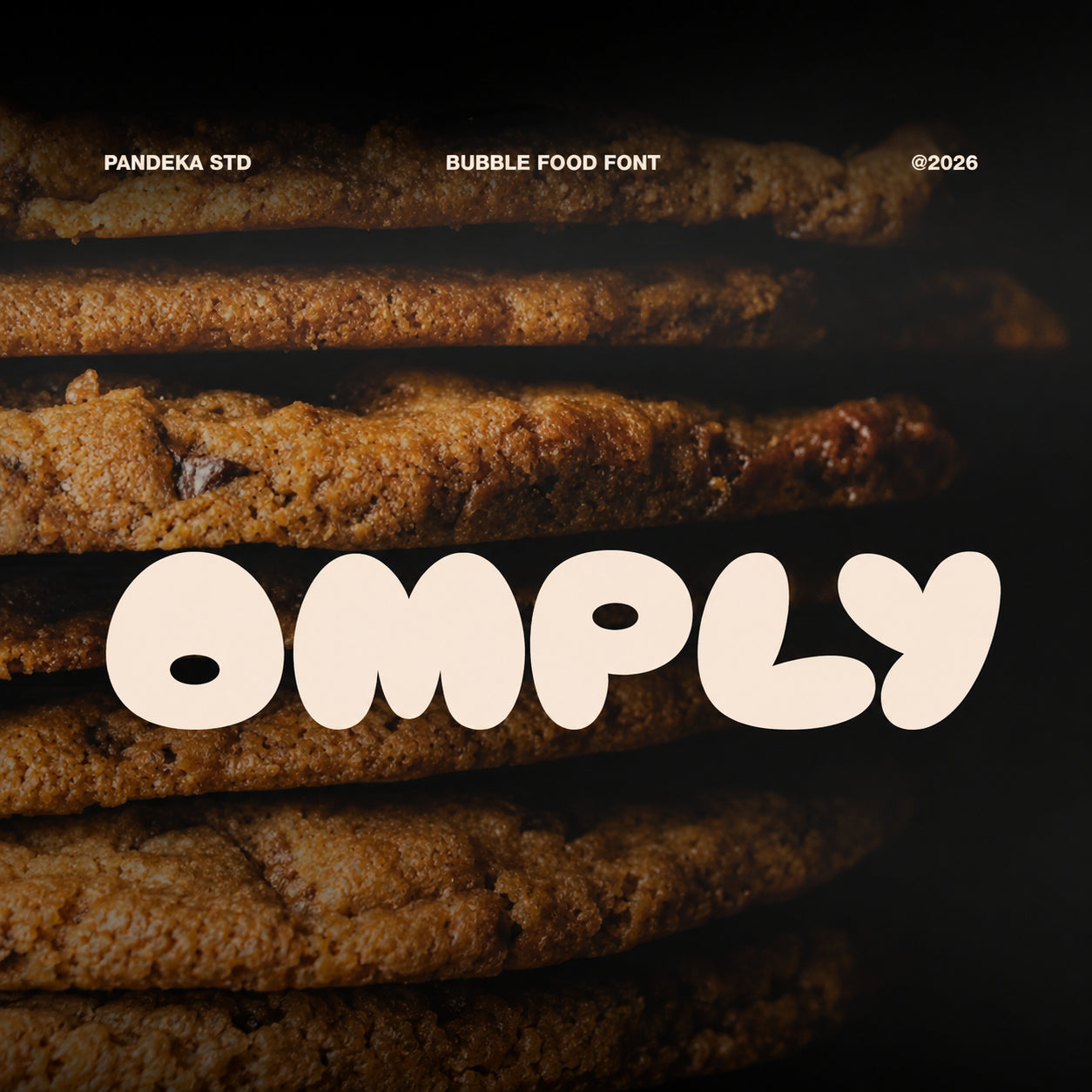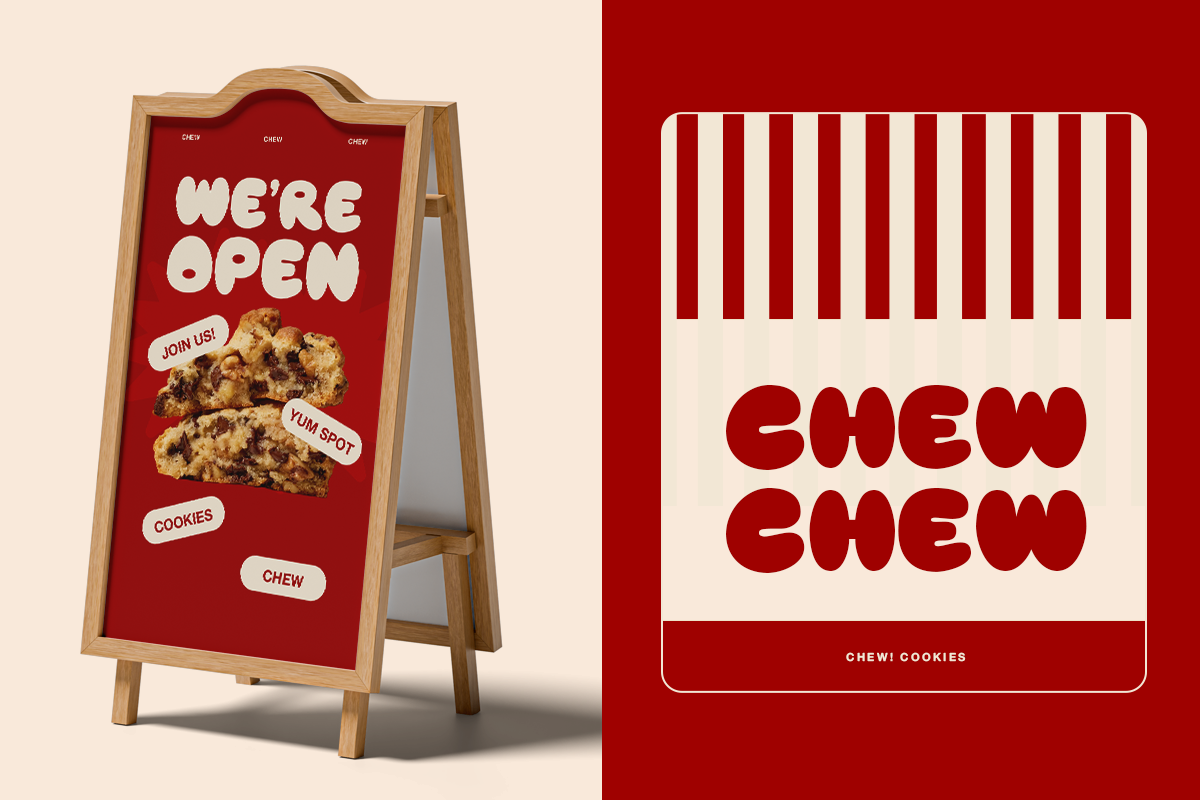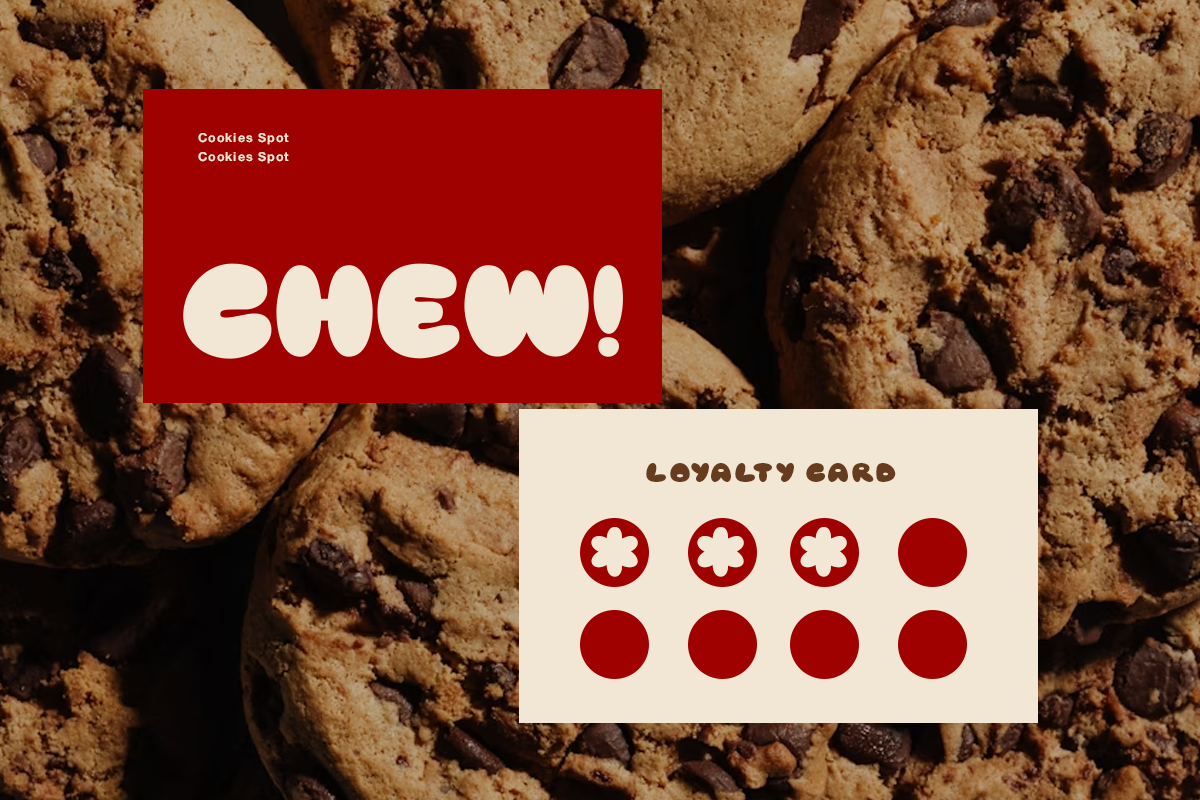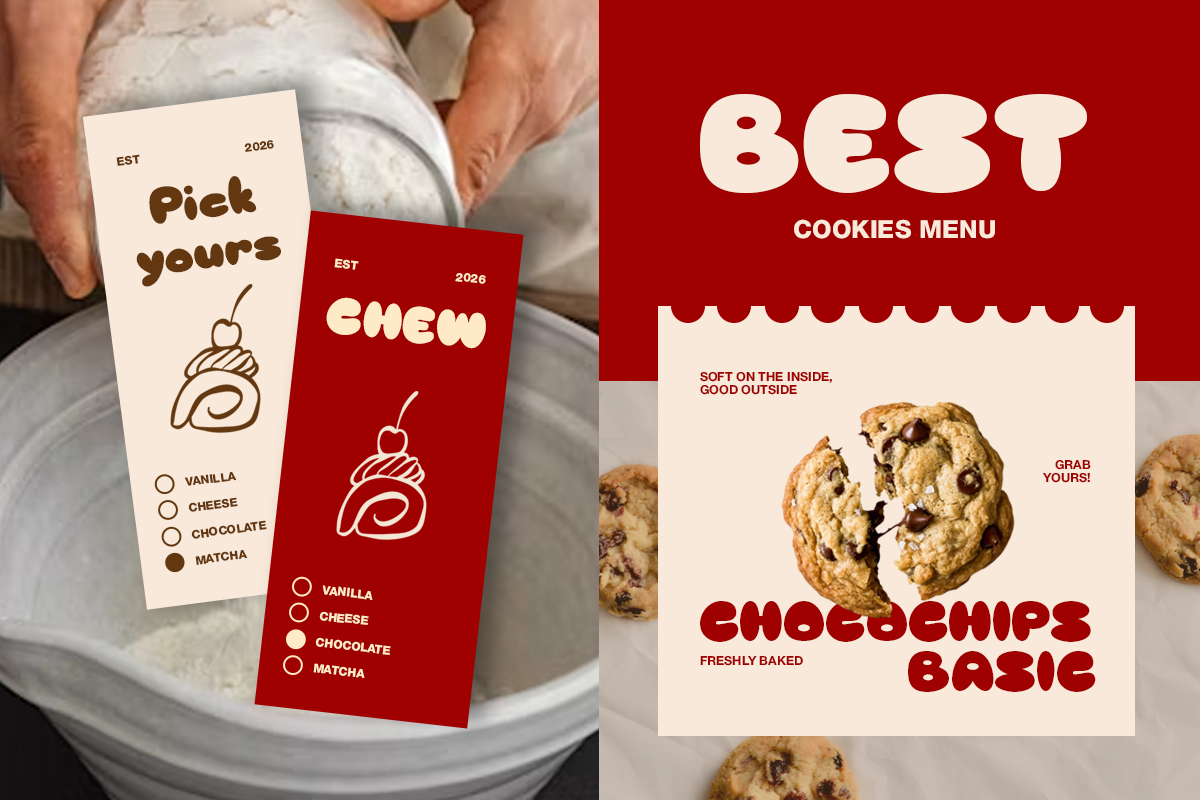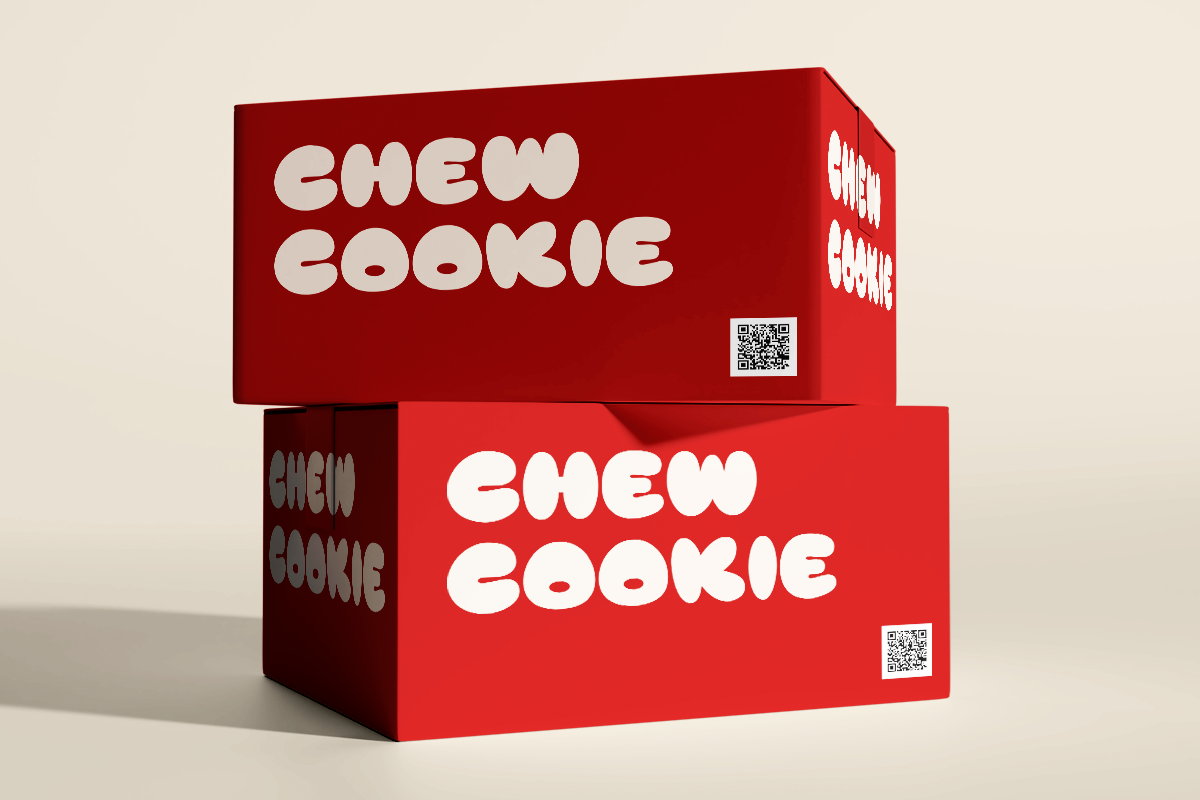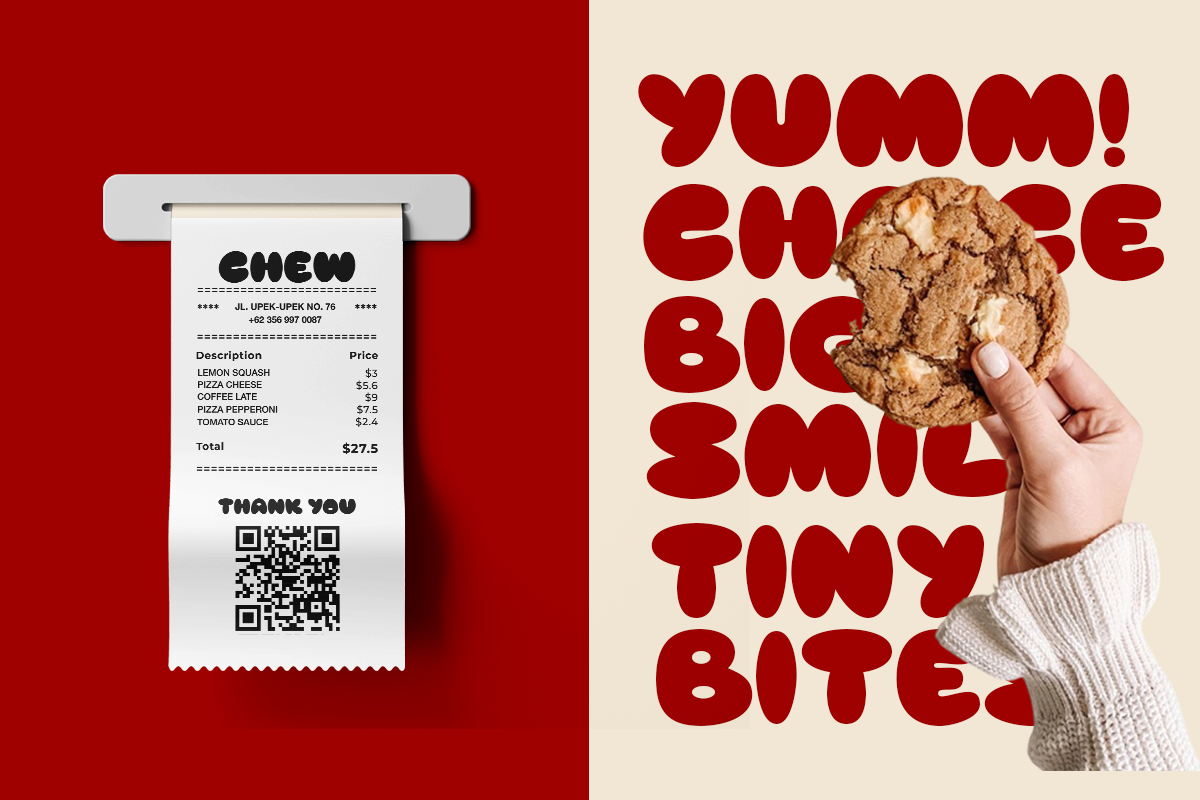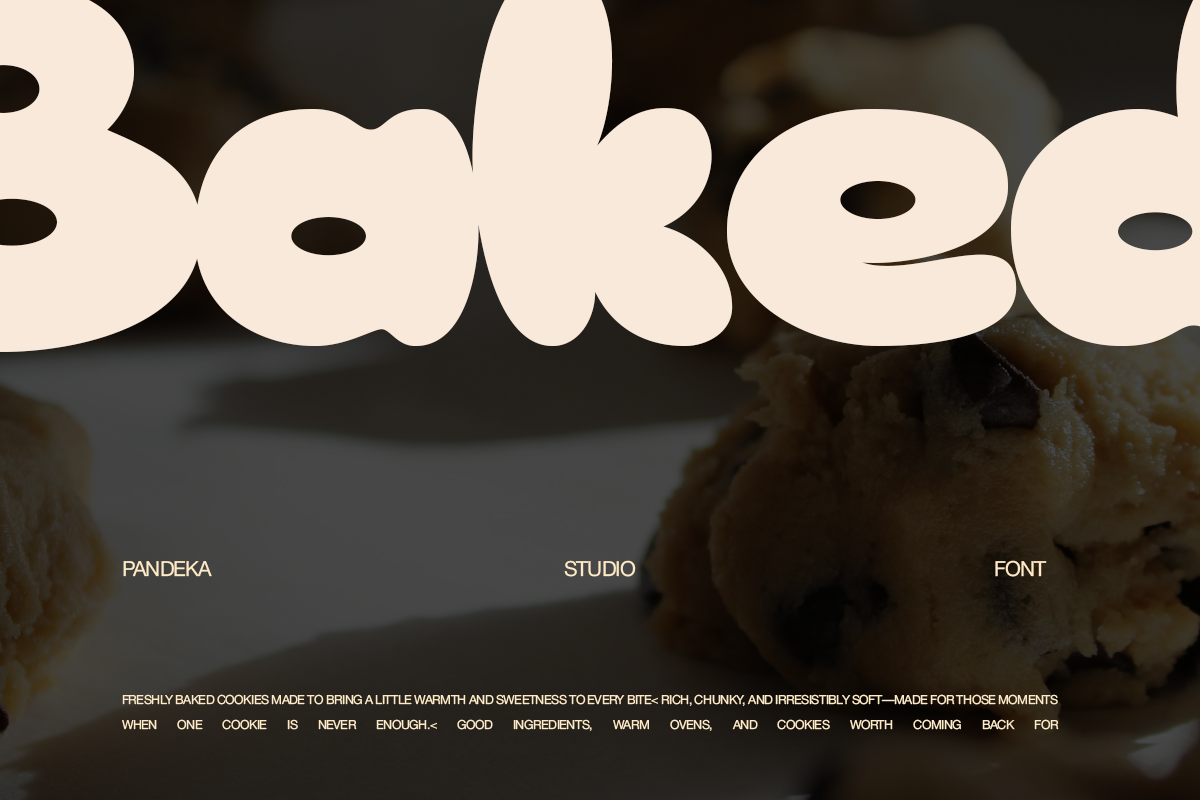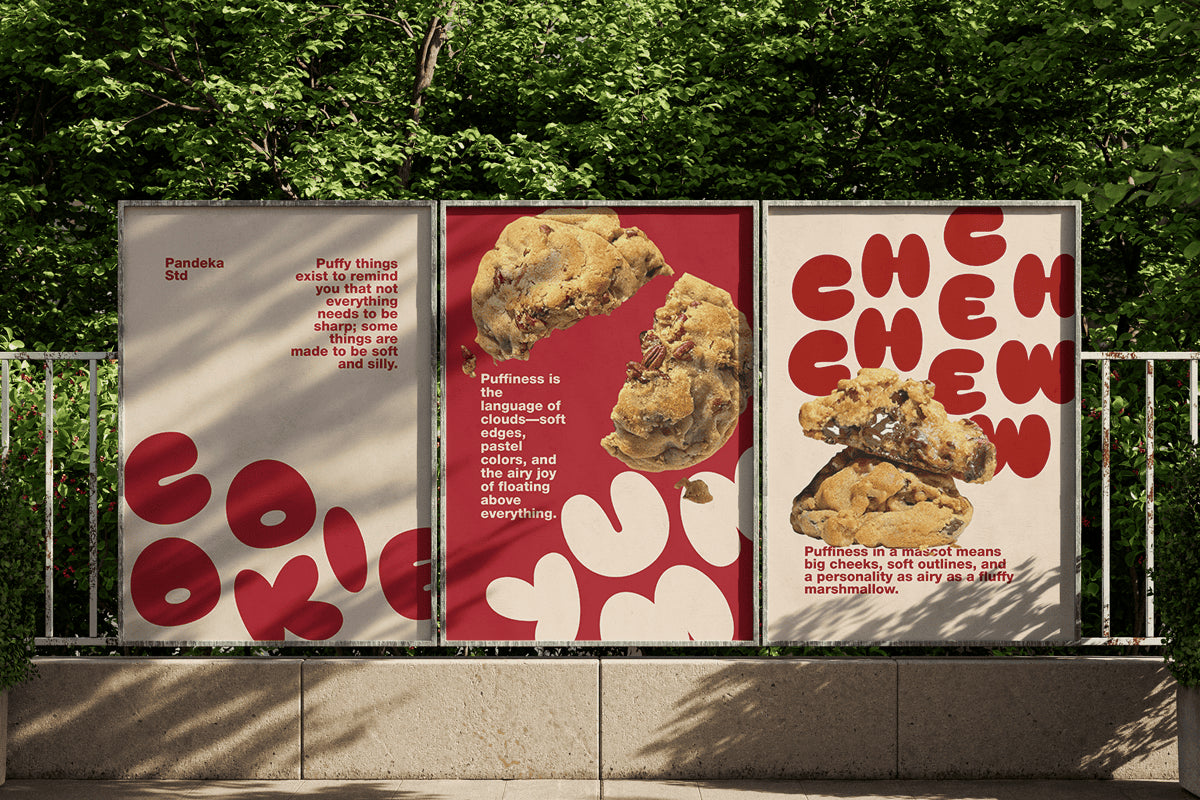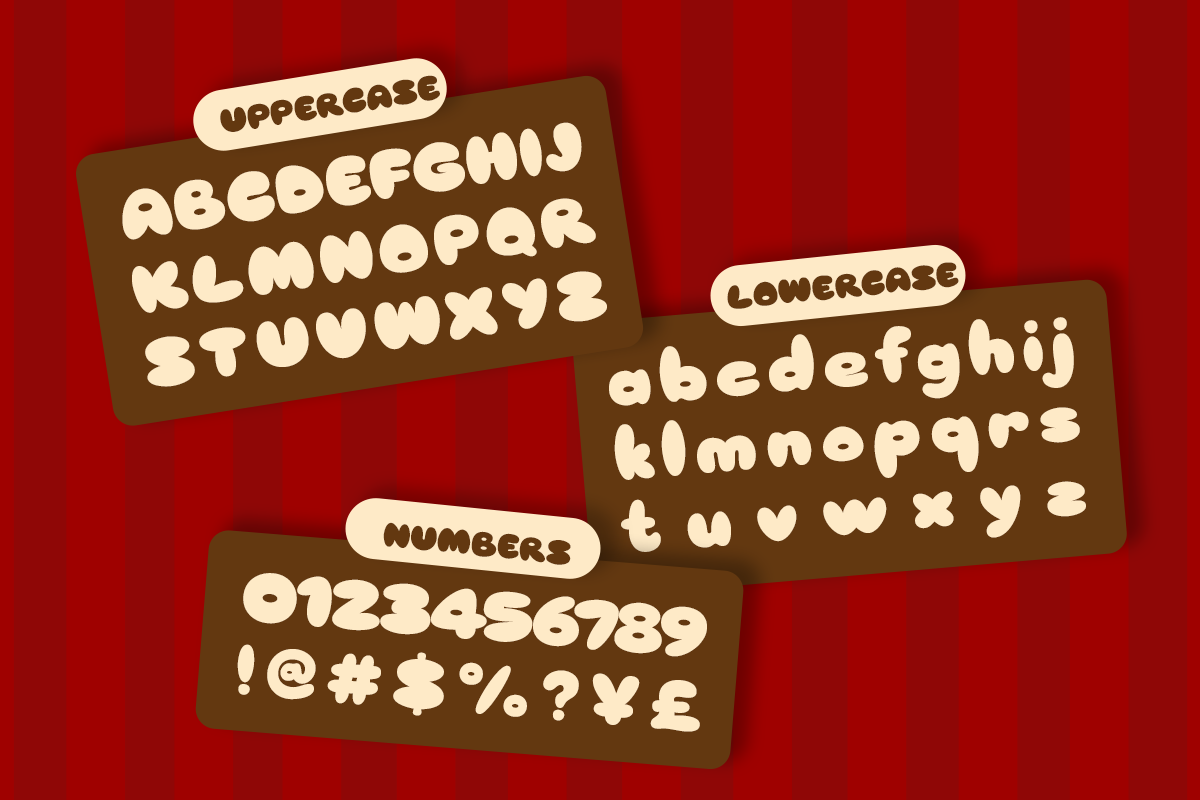
Omply - Bubble Food Font
Omply is a playful bubble font designed to bring a soft, bold, and cheerful personality to food-related designs. Featuring rounded, chunky letterforms with smooth curves and a friendly appearance, it creates an eye-catching visual style that works especially well for cookies, bakeries, desserts, cafés, and fun food branding.
Available in 2 styles: Regular & Oblique, Omply is suitable for food logos, bakery branding, cookie packaging, dessert labels, menu designs, posters, signage, social media graphics, promotional materials, product packaging, stickers, food trucks, and playful brand identities. Its bold and bubbly forms add a fun, youthful touch to both print and digital designs.
2 Styles: Regular and Oblique
Full Character Set: Uppercase, lowercase, numbers, symbols, and punctuation
Language Support: Danish, English, Estonian, Filipino, Finnish, French, Friulian, Galician, German, Gusii, Indonesian, Irish, Italian, Luxembourgish, Norwegian Bokmål, Norwegian Nynorsk, Nyankole, Oromo, Portuguese, Romansh, Rombo, Spanish, Swedish, Swiss-German, Uzbek (Latin)
Omply is a bubble font with rounded, chunky letterforms, available in Regular and Oblique styles. It includes TTF, OTF, WOFF, and WOFF2 formats, a full character set with PUA encoding, and support for 25 languages.